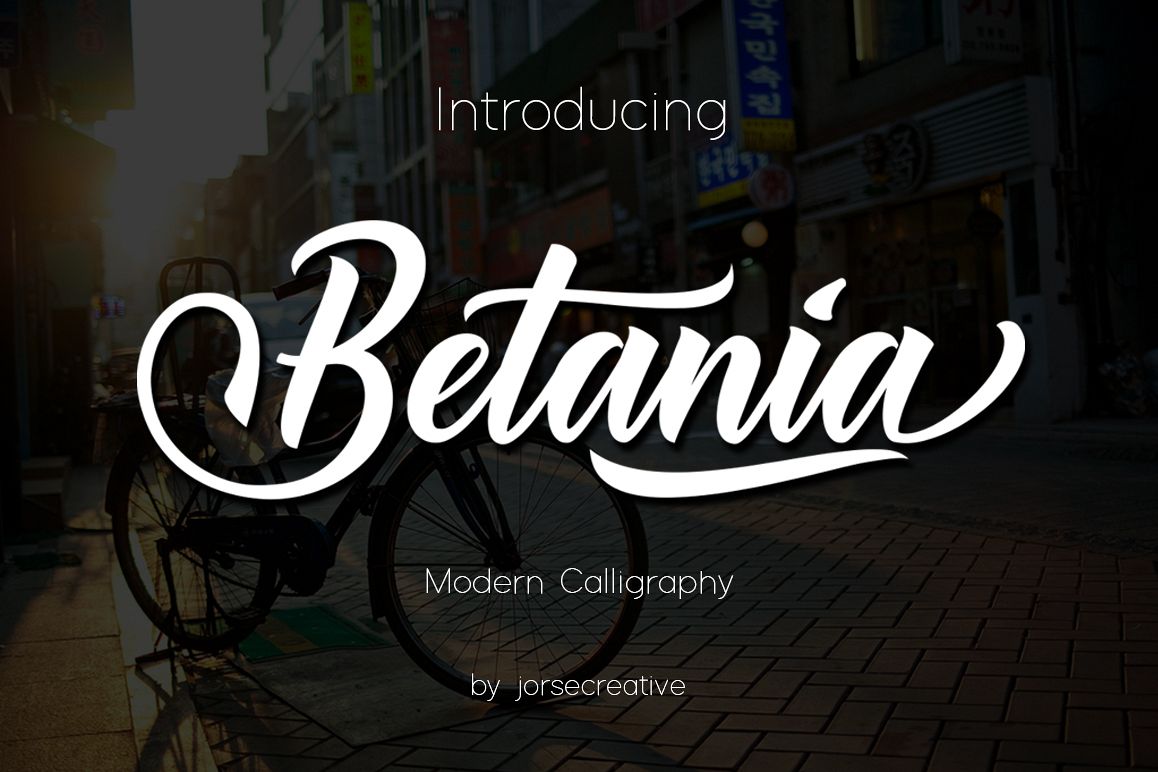
Betania Font
Betania Font is a combination of modern
calligraphy letter by letter classic typography so that seemed so good and
enchanting. Betania
Font
consists of 619 glyphs, covers the alternate character with 4 elect
SWASH ALTERNATIVES including 11 elect terminal and the initial letter,
alternately, ligatures and multiple language support.
The features of this font is :
• STANDARD UPERCASE
• STANDARD LOWERCASE
• SWASH ALTERNATIVES UPERCASE
• STYLISTIC ALTERNATIVES
LOWERCASE
• NITIAL & TERMINAL
ALTERNATIVE
• STANDARD LIGATURES
• DISCRETIONARY LIGATUR
Betania
Betania Font Can be used for various purposes. such as title, logos, wedding invitation,